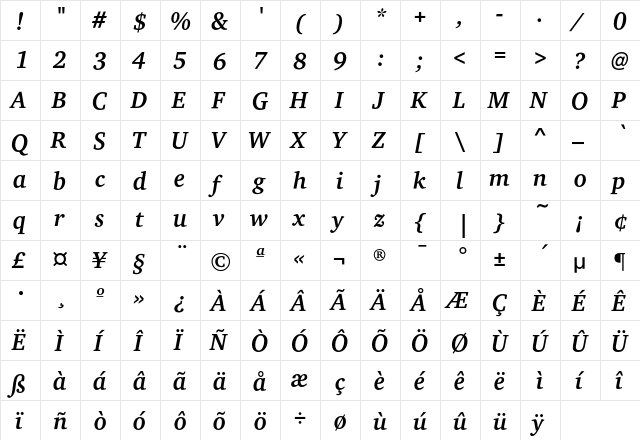
CharterEF BoldItalic
Design Context for CharterEF Typeface
CharterEF is a composed and adaptable typeface that performs quietly and consistently across a wide range of design contexts. The slanted form adds forward momentum and visual energy. The heavy weight commands attention and anchors typographic hierarchies.
Pro Tip: Use CharterEF for emphasis, pull quotes, and subheadings where its slanted energy can add rhythm to the layout.